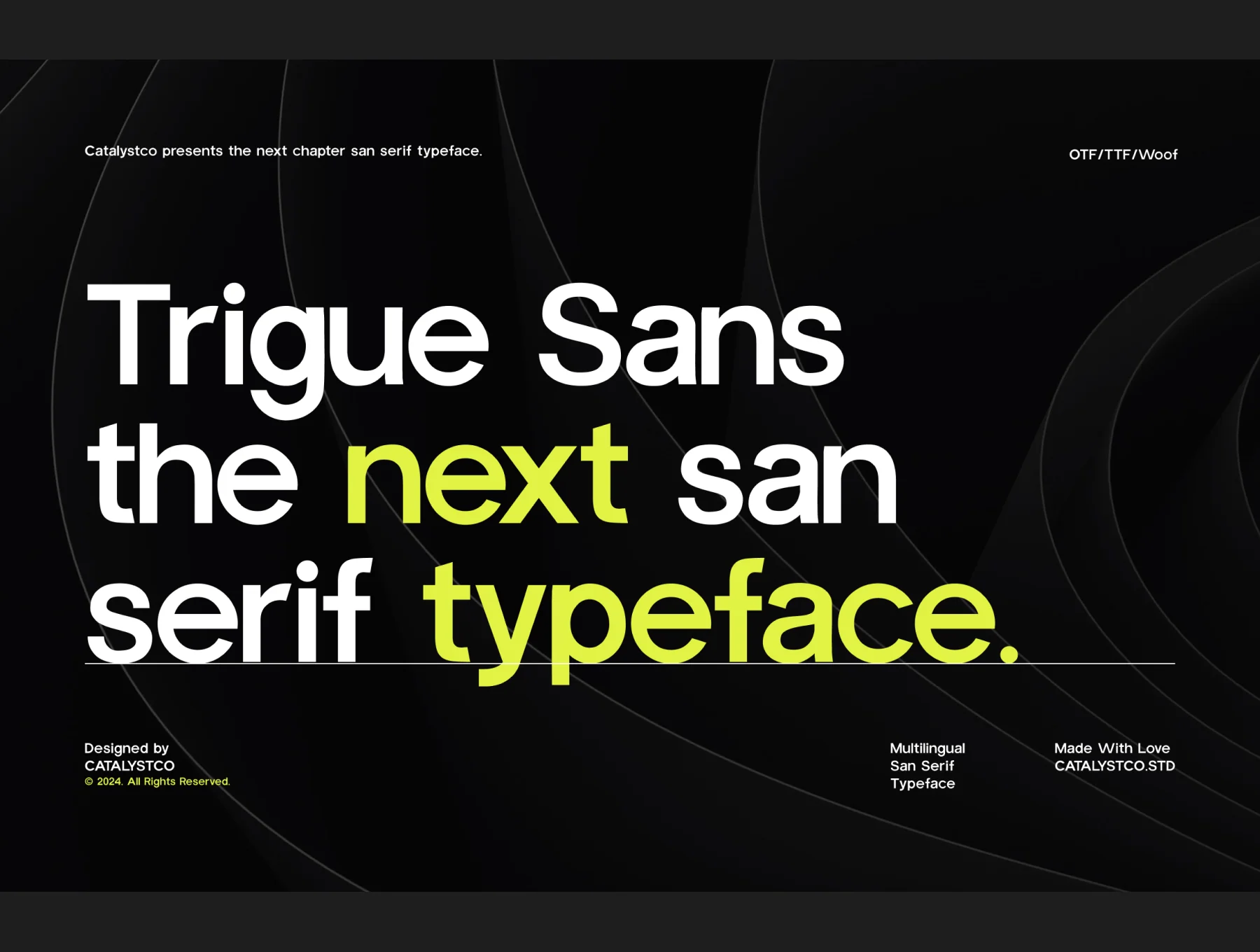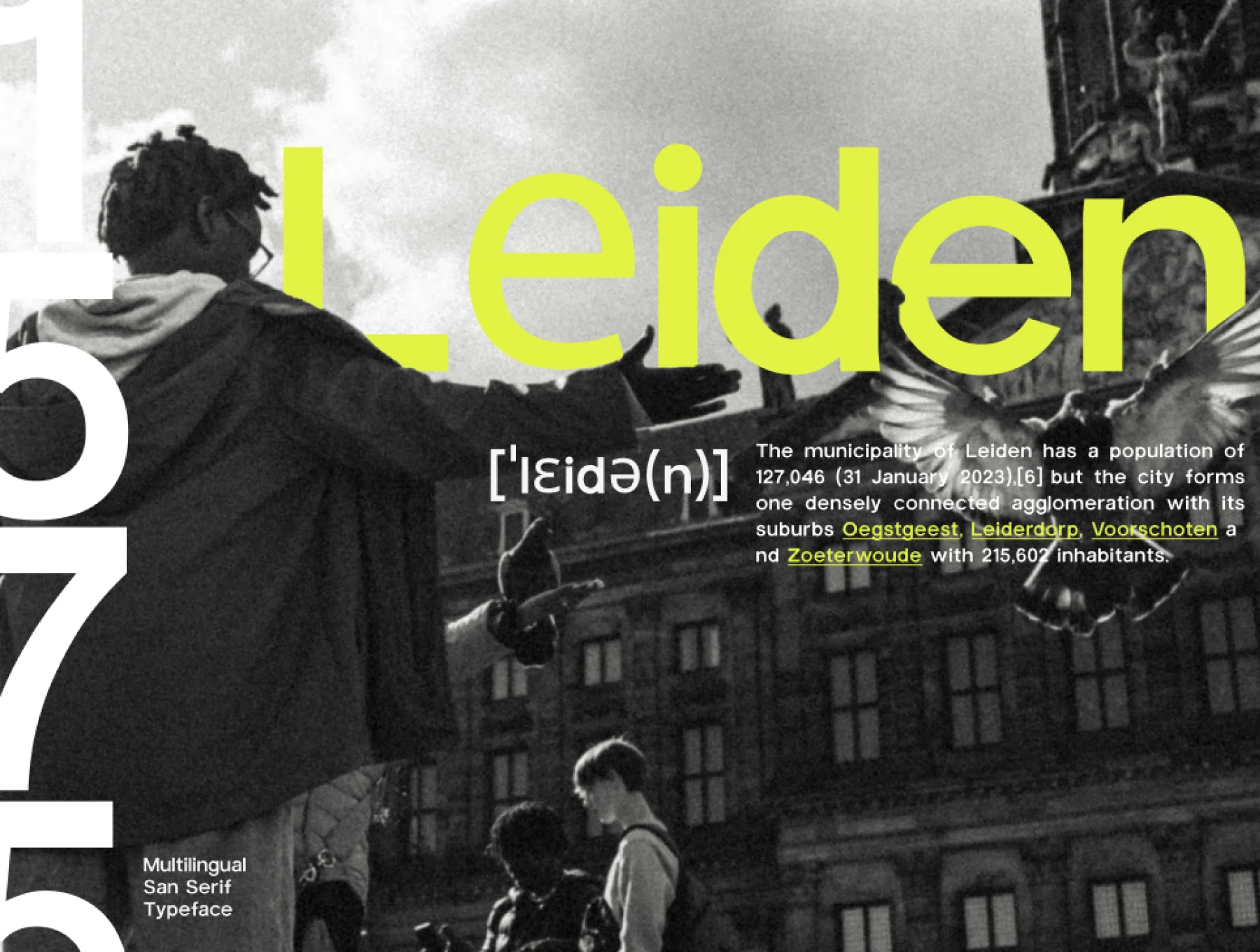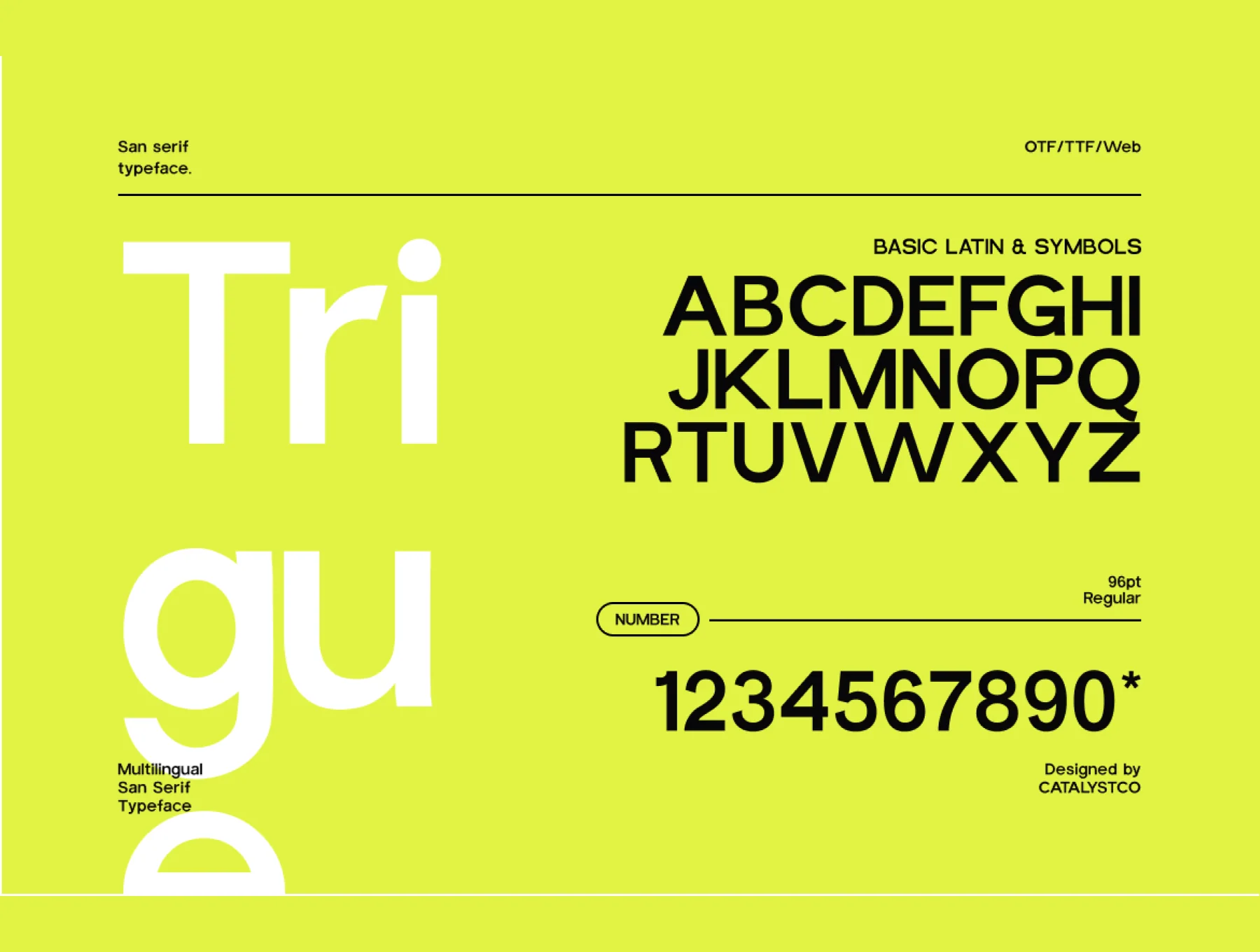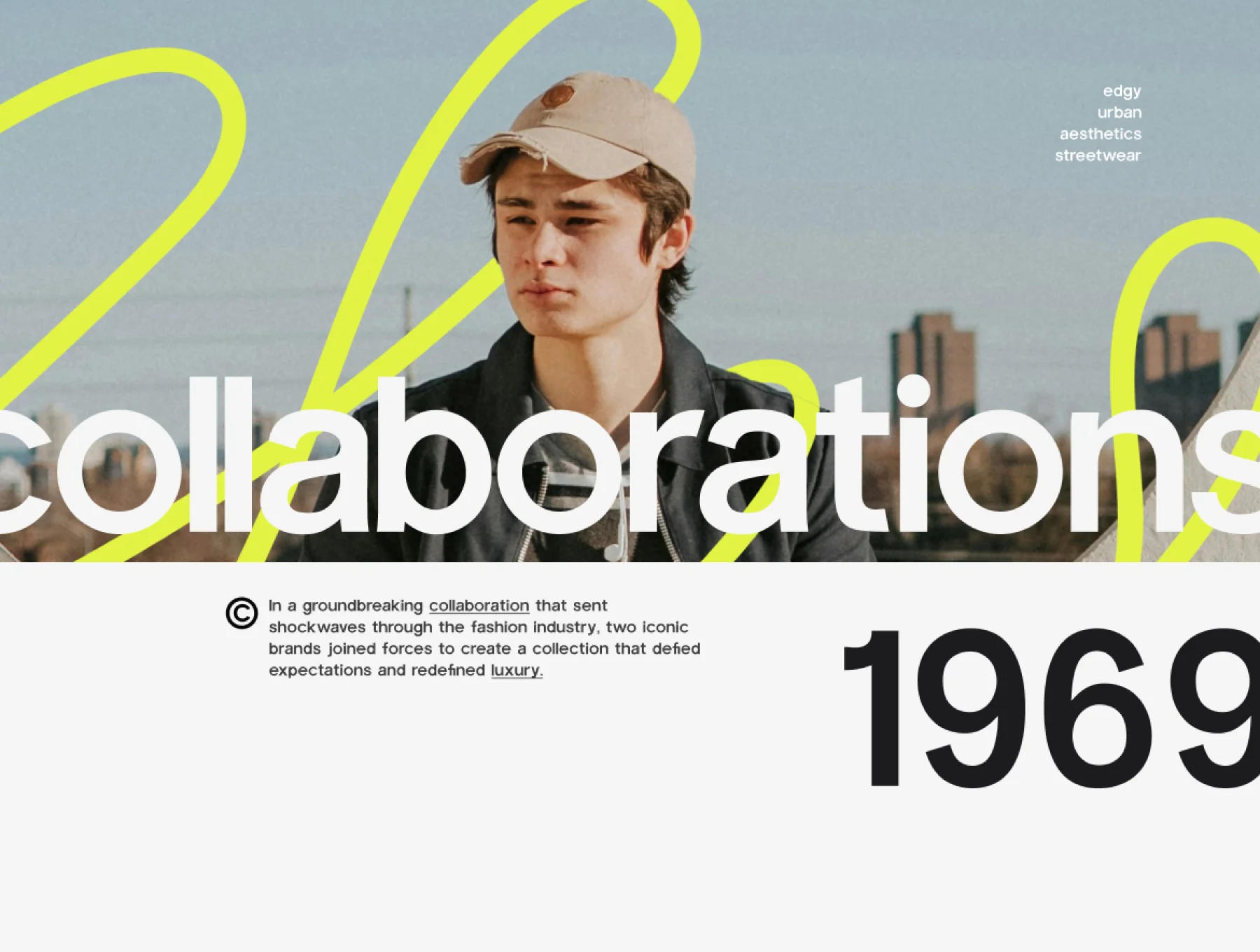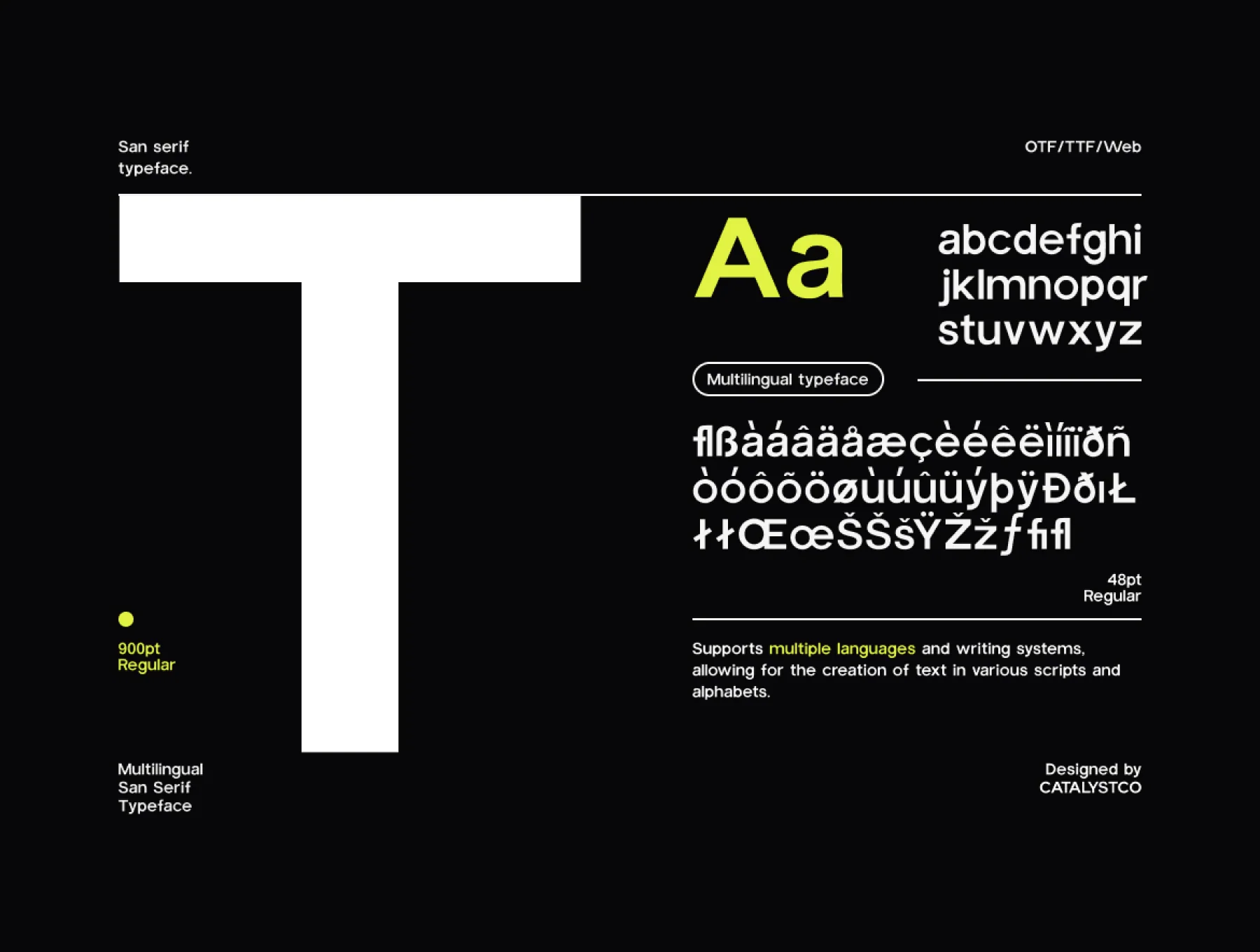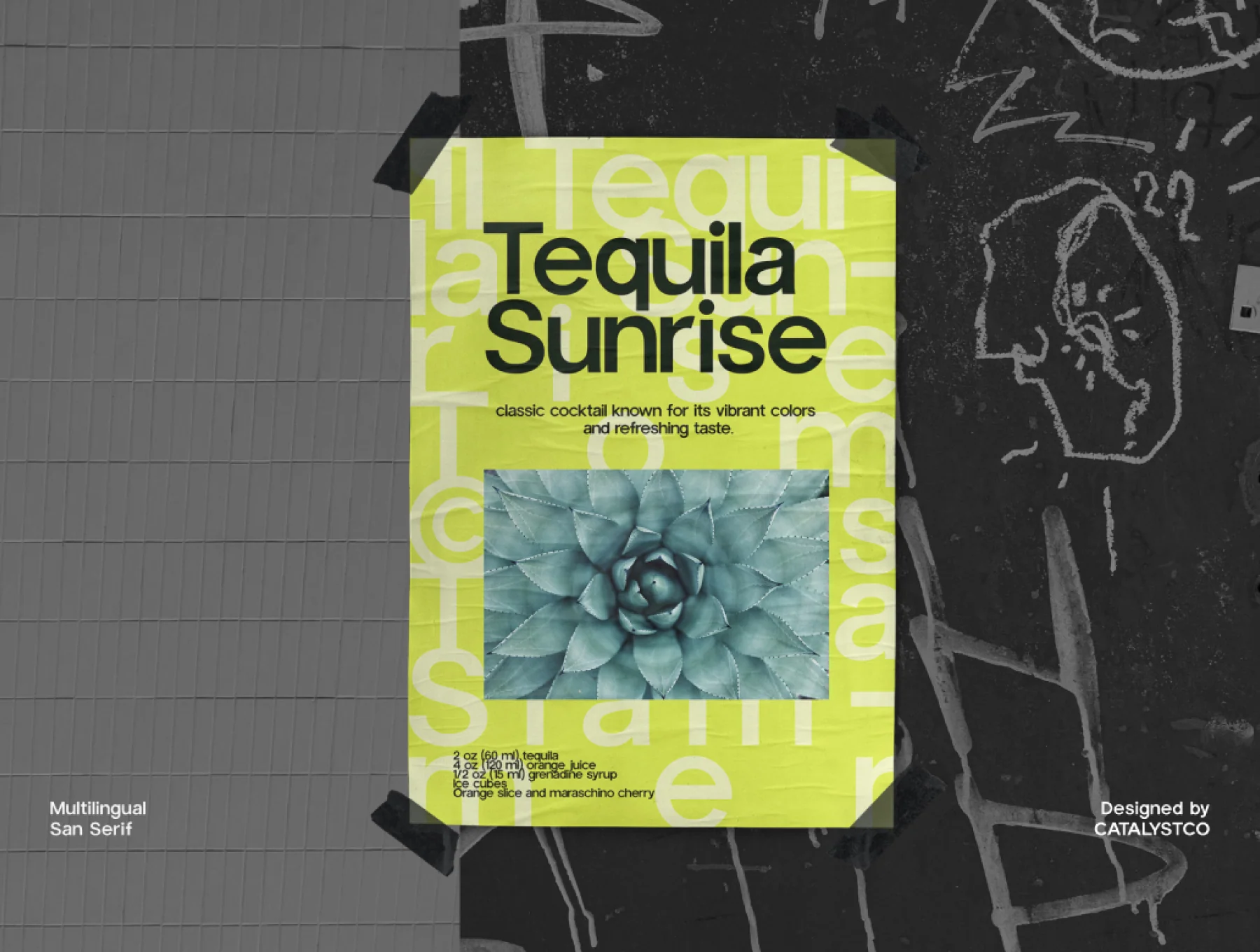
TrigueSans Sans Serif Font
Sans-serif typeface
Capital & small letters
Ligatures & stylistic alternates
TrigueSans is a versatile sans serif typeface ideal for quotes, logos, magazine headings, and more. Includes TTF, OTF, and WOFF files, uppercase and lowercase characters, ligatures, alternates, numbers, punctuation, and multilingual support.